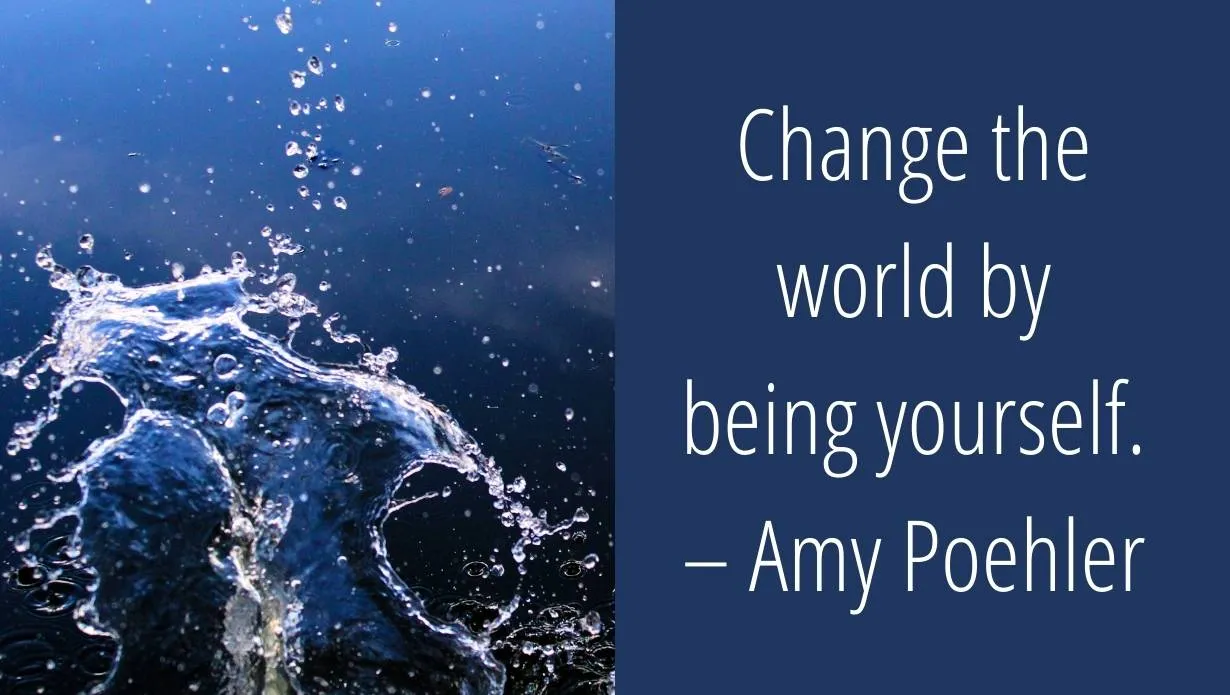
In this post, we are going to present the most popular font style design that is famous by the name of Open Sans Condensed Font. This spectacular font style design falls under the category of Sans Serif typeface.
Open Sans Condensed Font Family
This font style design contains various weights such as Light 300 italic, bold 700, and light 300. Steve Matteson is the designer of this stunning-looking font style design. Steve Matteson is very well known due to his work in the typeface industry.